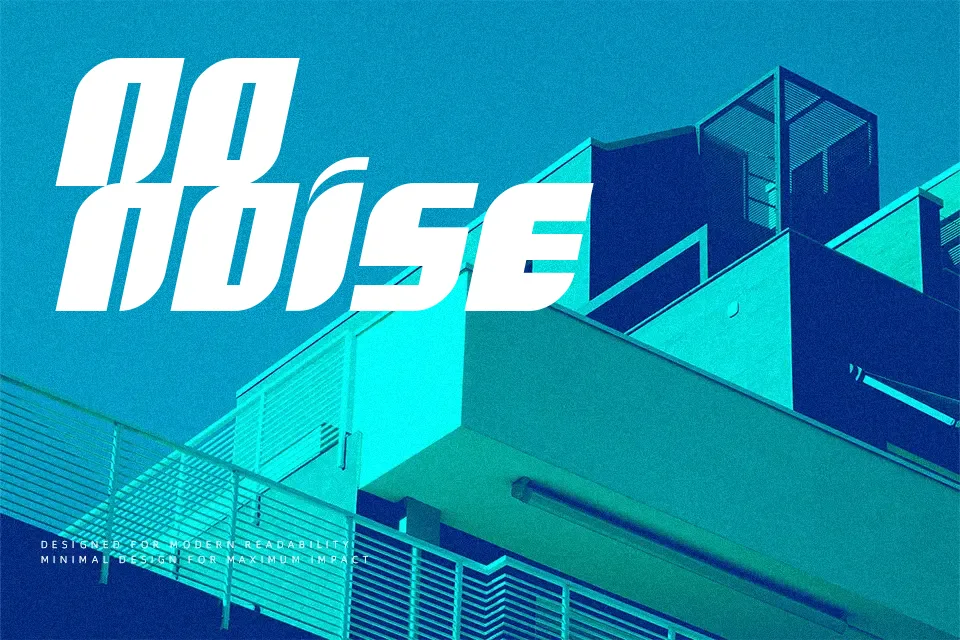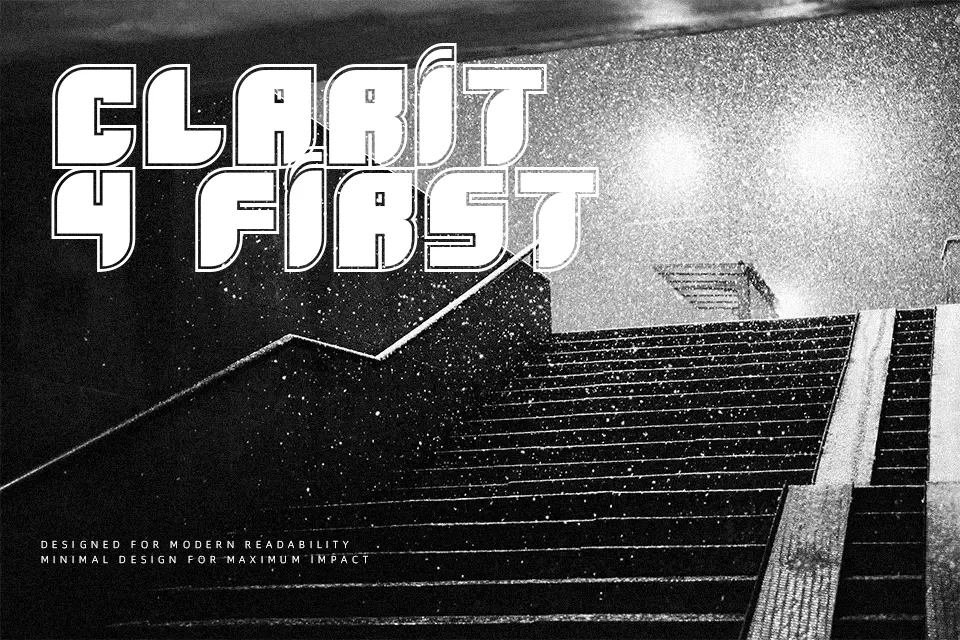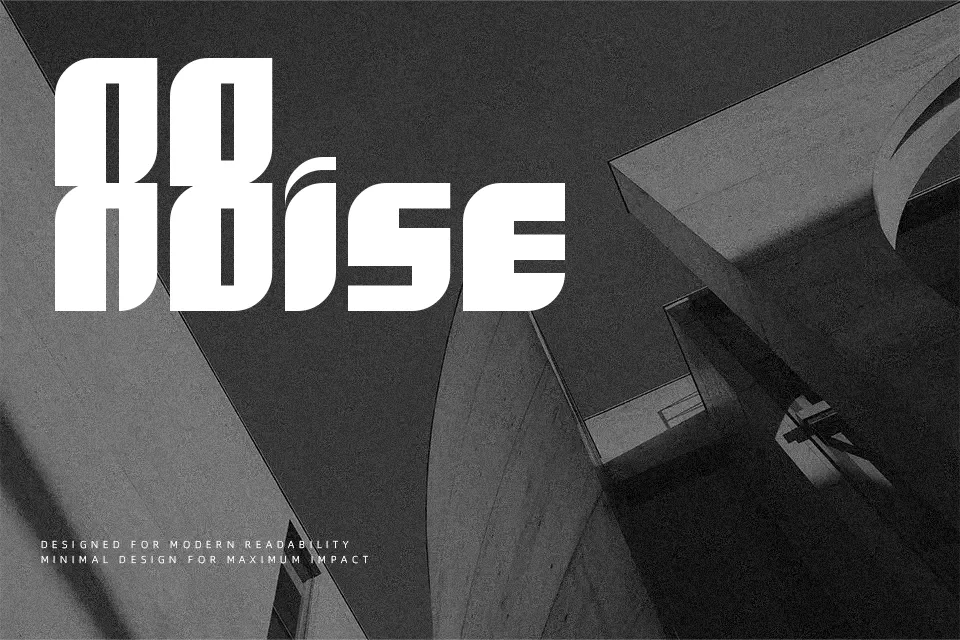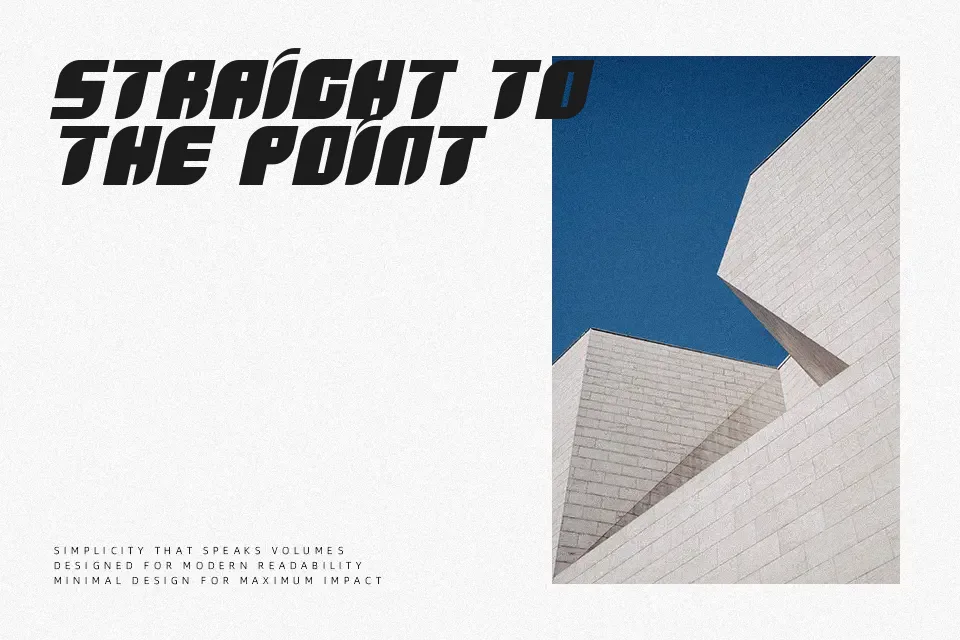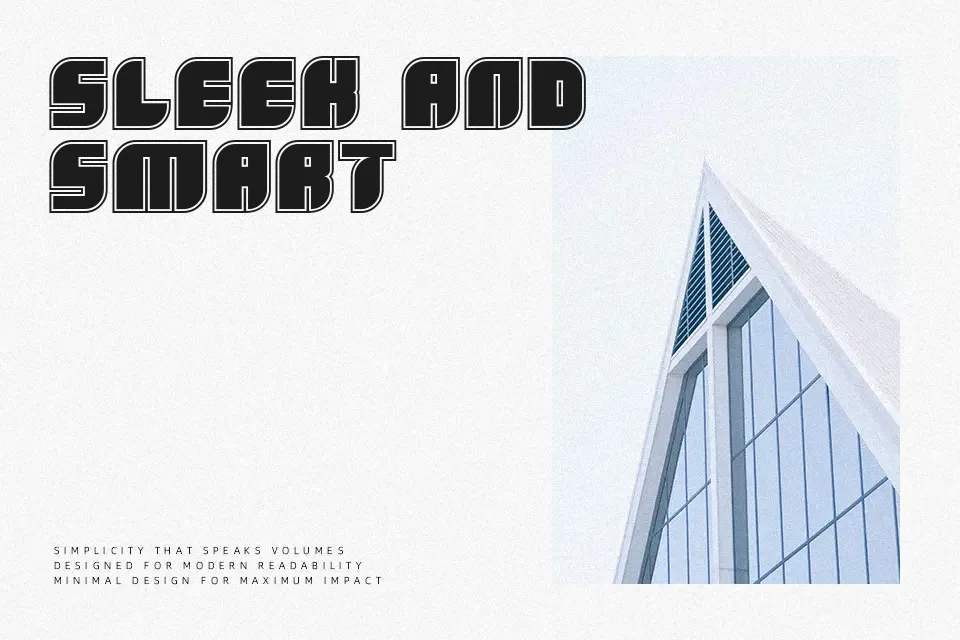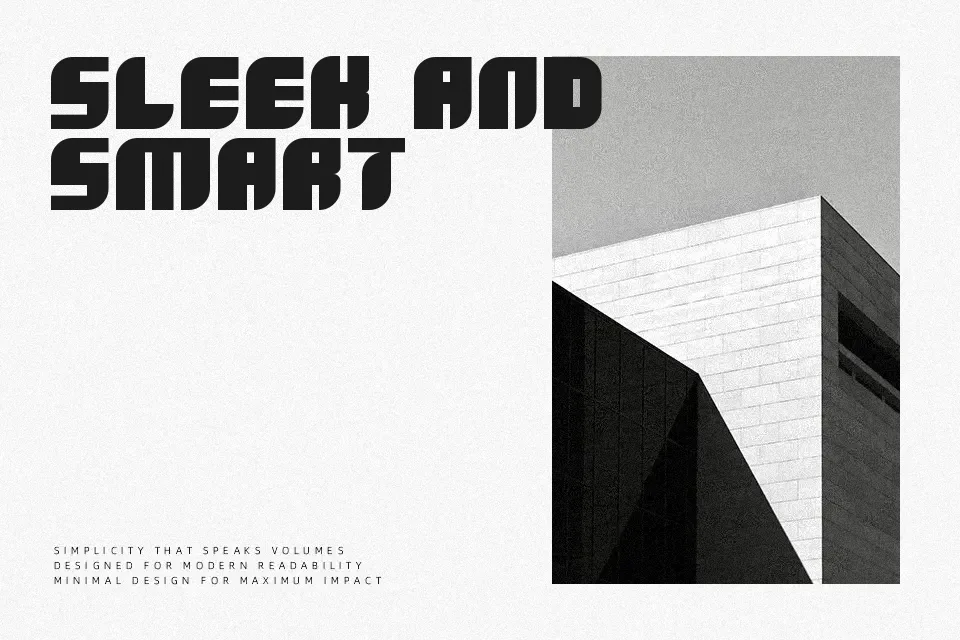
Boldie Font
Boldie Font is a commanding display typeface that relies on its substantial weight to create immediate visual impact. Featuring thick, pronounced strokes and a tightly structured anatomy, it delivers a distinctly assertive aesthetic. The inclusion of both an outline and italic variant provides designers with versatile layering options for dynamic compositions.
This font excels in environments demanding attention, such as large-scale event posters, robust advertising campaigns, and impactful branding. Its heavy proportions allow it to anchor a layout effectively. However, due to its massive build and limited negative space, Boldie struggles significantly at smaller sizes. It is strictly recommended for short, punchy titles rather than extended reading applications.
– Dominant headlines in editorial layouts
– Striking event posters and promotional flyers
– Bold logo marks for modern identity systems
– Layered typography utilizing the included outline style
– Body copy or dense paragraphs
– Minimalist or highly delicate compositions
– Small-scale print materials requiring high legibility
Perfect for advertising, branding, and headline, with a bold and decorative style.